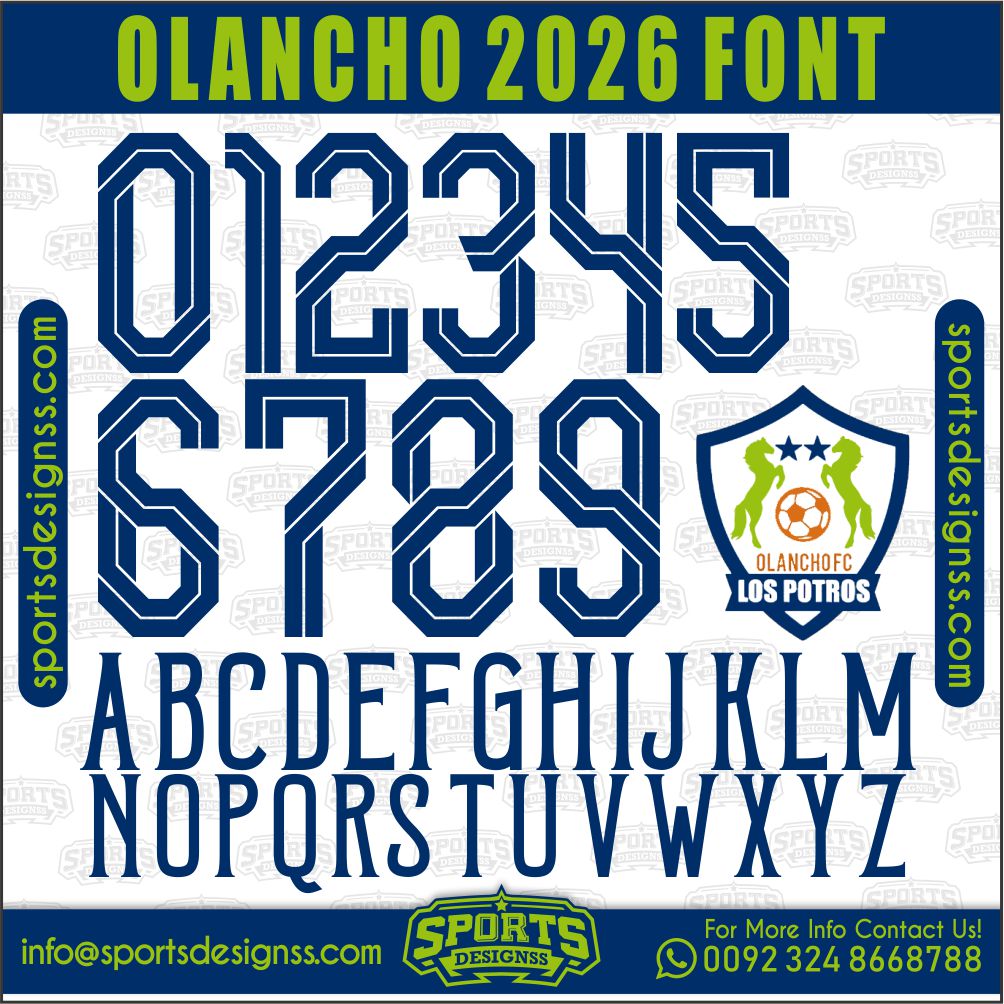
Recreate authentic football jersey designs with the OLANCHO 2026, built for realistic, match-ready sports visuals.
Upgrade your designs with the OLANCHO 2026, a premium football jersey font inspired by modern professional sports aesthetics.